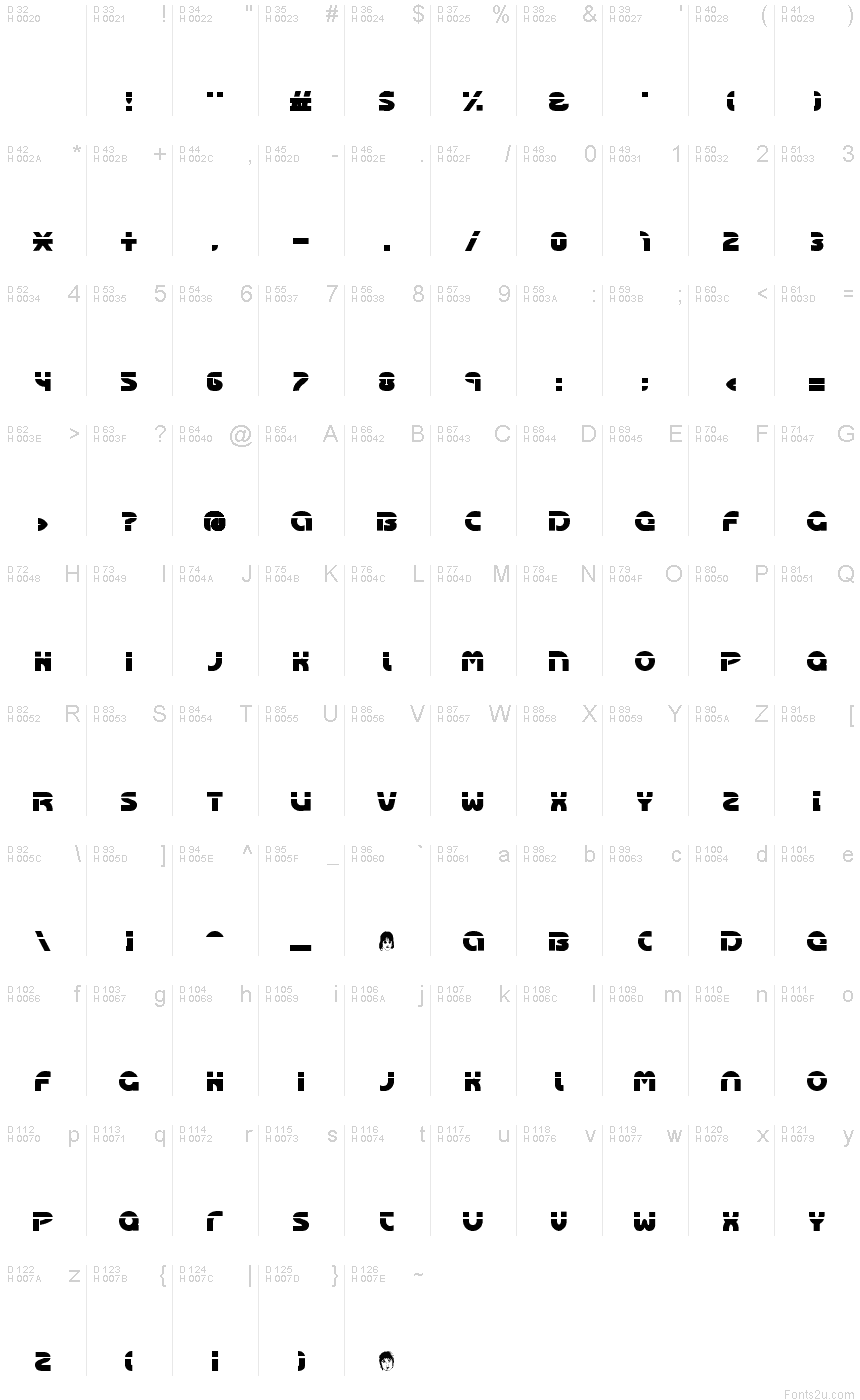
Oasis
Oasis font by Nathan Barry is a free display font with rounded geometric forms and sharp horizontal cuts. The letters feel closely tied together, with broad curves and clipped openings that give the design a custom, logo-like rhythm.
Oasis works well for album art, band branding, poster titles, merchandise graphics, and editorial lockups where a strong wordmark shape matters. This free font brings a clear, built-in identity to short headlines and brand names without needing extra decoration.